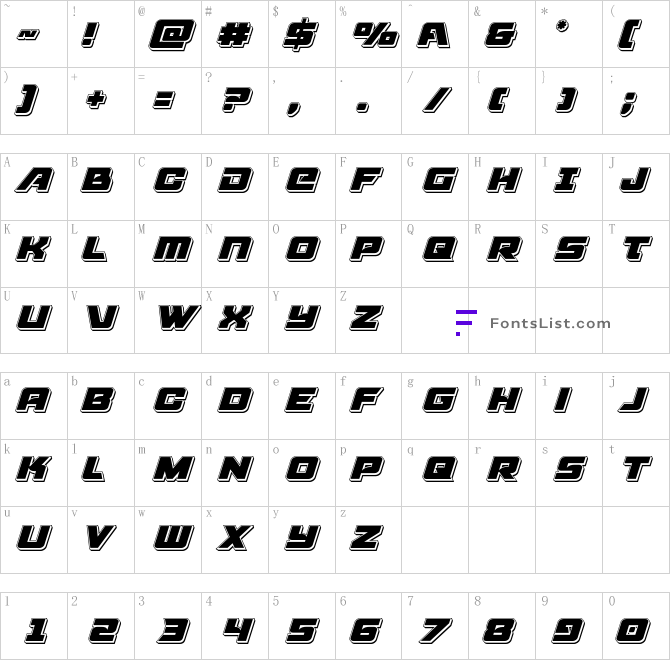
- Font Name:Aircruiser Punch Italic
Aircruiser-Punch-Italic.ttf is a very beautiful artistic font, Aircruiser-Punch-Italic.ttf is widely used in the design and printing of various books and pictures,Aircruiser-Punch-Italic.ttf has a strong visual impact,Aircruiser-Punch-Italic.ttf is a commonly used font in newspapers, magazines and books, and is used in posters, e-commerce Poster design, store design, logo design, font design and other fields.Aircruiser-Punch-Italic.